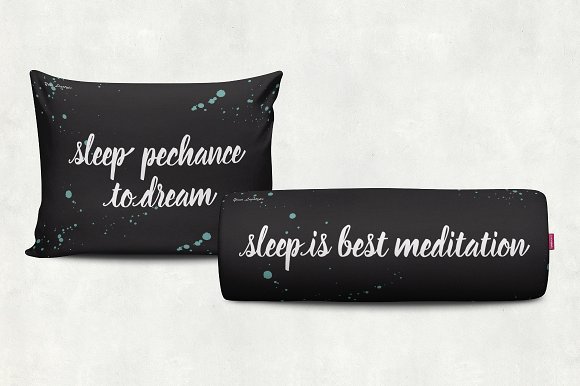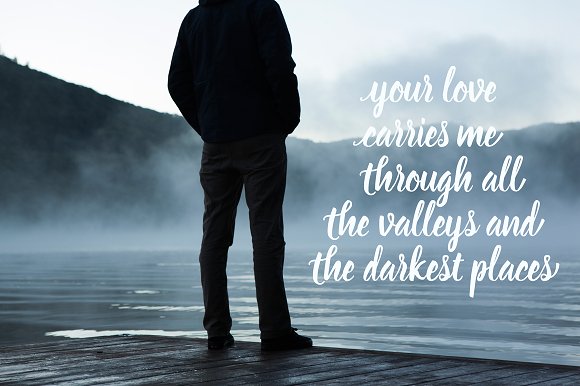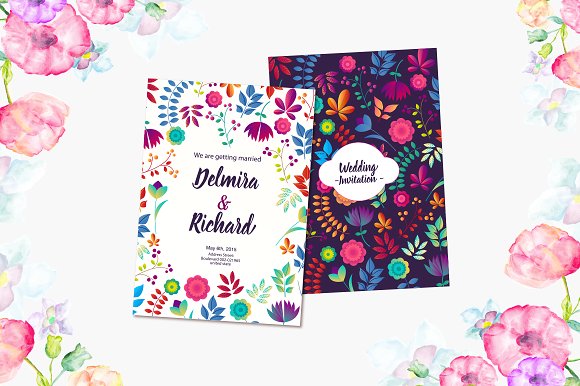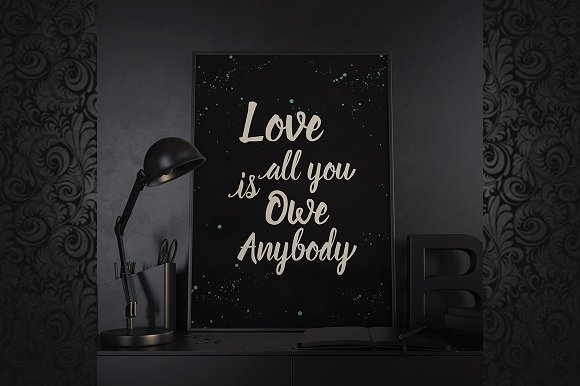
Discover the Charm of Beloved Font: A Fluid and Strong Handwritten Type
In the world of typography, fonts play a crucial role in conveying the tone and personality of a brand or design. Among the numerous fonts available, Beloved Font stands out for its unique fluidity and strength. Created by the Unicode design studio, Beloved Font is a handwritten type that has captured the hearts of designers and crafters alike. In this article, we’ll explore the features, benefits, and uses of Beloved Font, and why it’s becoming a favorite among creative professionals.
What is Beloved Font?
Beloved Font is a fluid, strong handwritten type designed by the Unicode design studio. Its fluidity gives it a natural, effortless look that’s perfect for a wide range of projects. The font’s strong personality makes it suitable for headlines, titles, and body text, allowing designers to experiment with different styles and layouts.
Key Features of Beloved Font
- Fluid and Strong: Beloved Font’s fluidity gives it a unique, handwritten feel that’s both elegant and robust.
- Handwritten Style: The font’s handwritten style adds a personal touch to any design, making it perfect for projects that require a human touch.
- Versatile: Beloved Font is suitable for various types of projects, from branding and advertising to packaging and digital media.
- Easy to Read: Despite its fluidity, Beloved Font is remarkably legible, making it an excellent choice for body text and longer content.
Benefits of Using Beloved Font
So, why should designers and crafters choose Beloved Font for their projects? Here are some benefits that make it an attractive option:
- Unique Personality: Beloved Font adds a distinct personality to any design, setting it apart from more traditional fonts.
- Flexibility: The font’s versatility allows designers to experiment with different styles, from elegant and refined to bold and playful.
- Emotional Connection: The handwritten style of Beloved Font creates an emotional connection with the audience, making it perfect for projects that require a personal touch.
- Time-Saving: With Beloved Font, designers can save time and effort, as the font’s legibility and fluidity eliminate the need for extensive editing and refinement.
Uses of Beloved Font
Beloved Font is suitable for a wide range of projects, including:
- Branding and Identity: Use Beloved Font to create a unique and memorable brand identity that stands out from the competition.
- Advertising and Marketing: The font’s strong personality makes it perfect for headlines and titles in advertising and marketing materials.
- Packaging Design: Add a personal touch to your packaging design with Beloved Font, making your products more appealing to customers.
- Digital Media: Use Beloved Font in digital media, such as social media graphics, blog posts, and website designs, to add a touch of elegance and sophistication.
In conclusion, Beloved Font is a versatile and charming handwritten type that’s perfect for designers and crafters looking to add a unique touch to their projects. Its fluidity, strength, and legibility make it suitable for a wide range of applications, from branding and advertising to packaging and digital media. With Beloved Font, designers can create stunning designs that capture the hearts of their audience. So, why not give Beloved Font a try and experience the magic of this beautiful font for yourself?